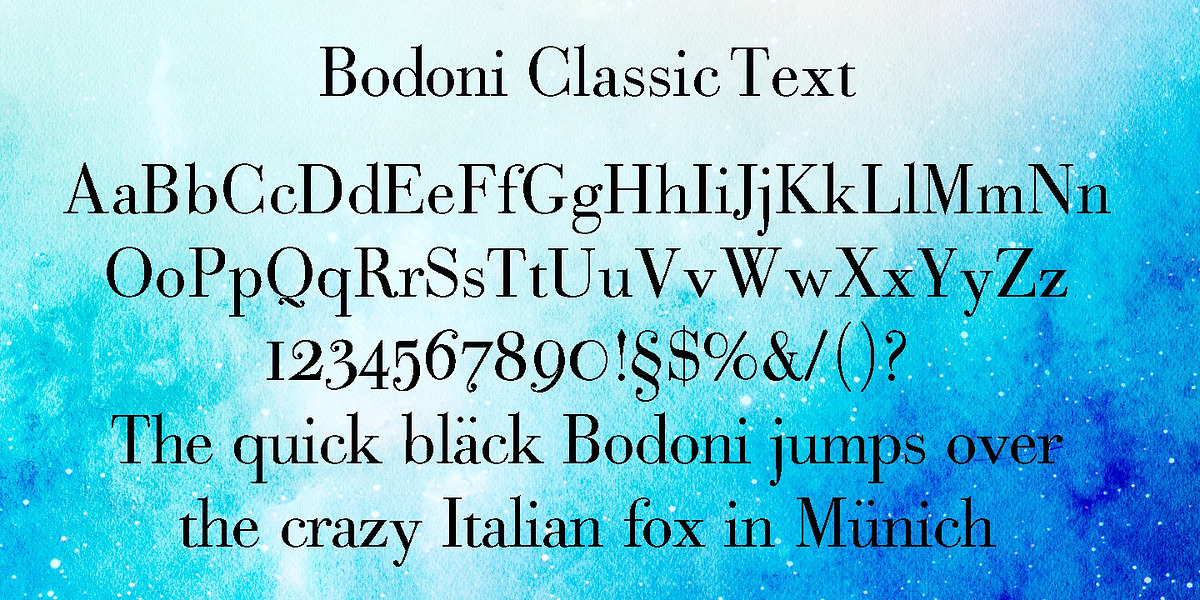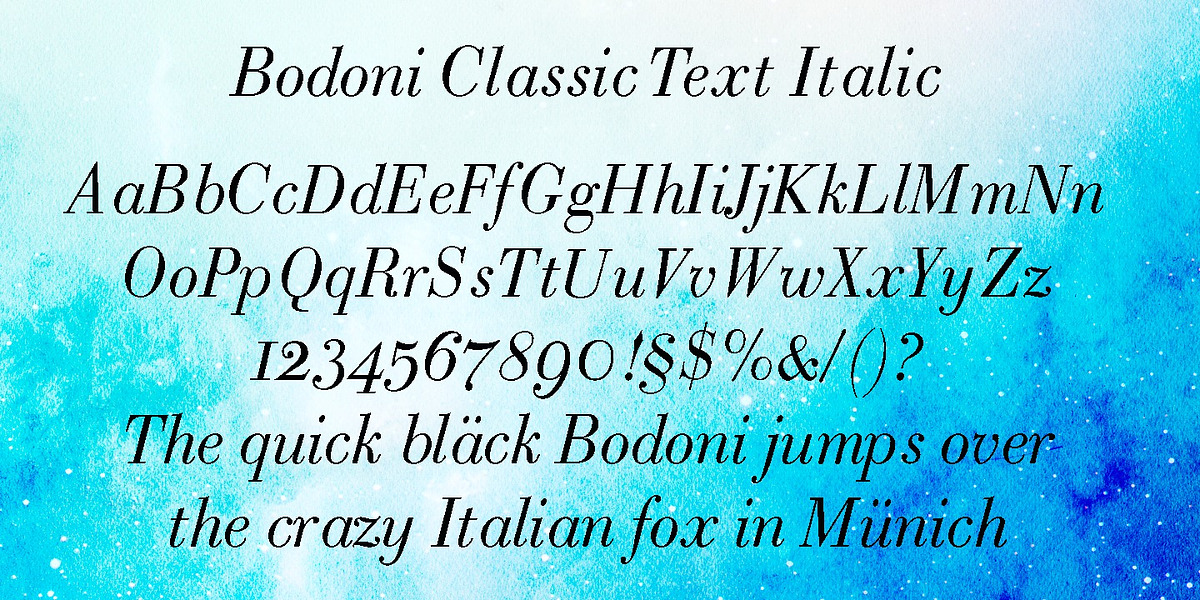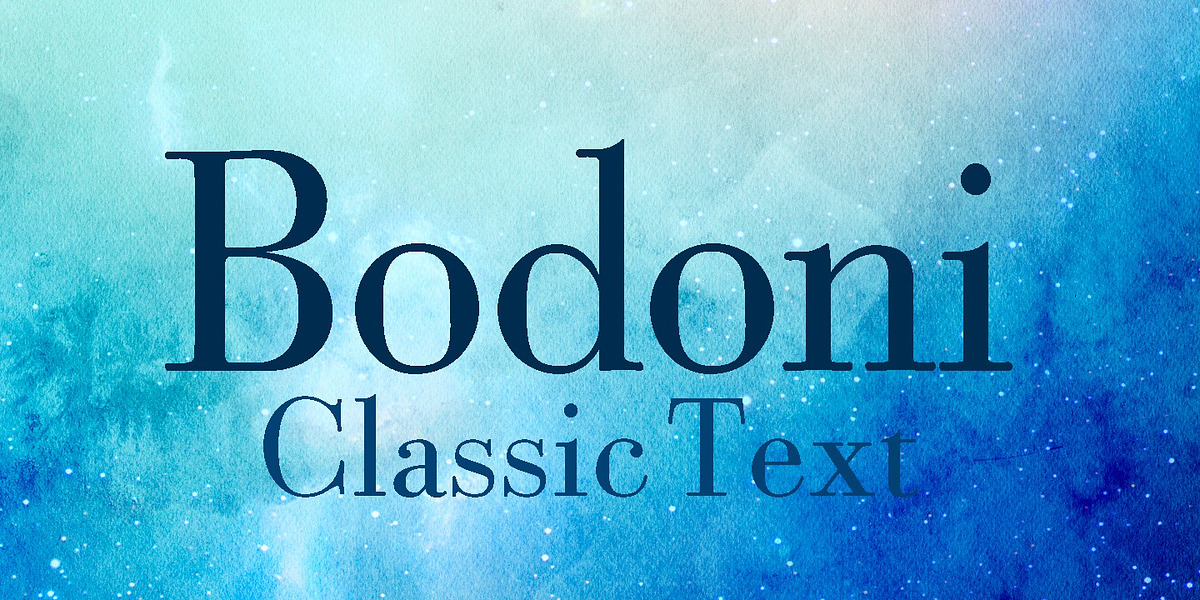
Bodoni Classic Text
Bodoni Classic is a serif typeface designed by Gert Wiescher. It was inspired by the work of Giambattista Bodoni and features the characteristic high contrast between thick and thin strokes typical of didone typefaces. Wiescher modernized the original design, giving it a refined elegance suitable for formal applications such as paragraph text in books and magazines or branding materials.